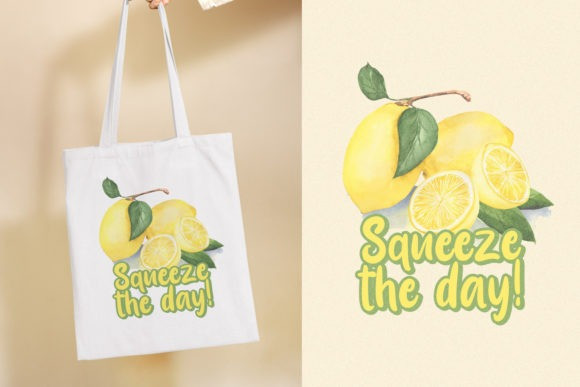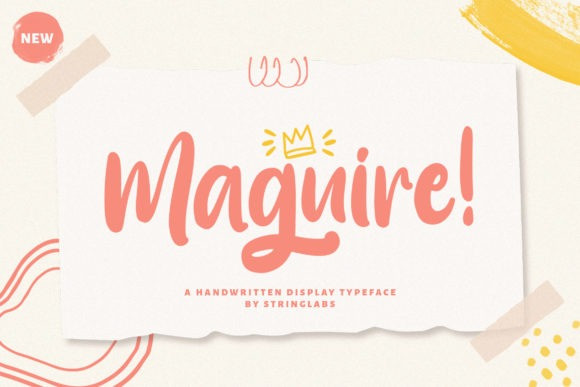
Maguire Font
Maguire Script Font is a lovely, paint brushed handwritten font. Get inspired by its ravishing style and use it to create gorgeous wedding invitations, beautiful stationary art, eye-catching social media posts, and much more!